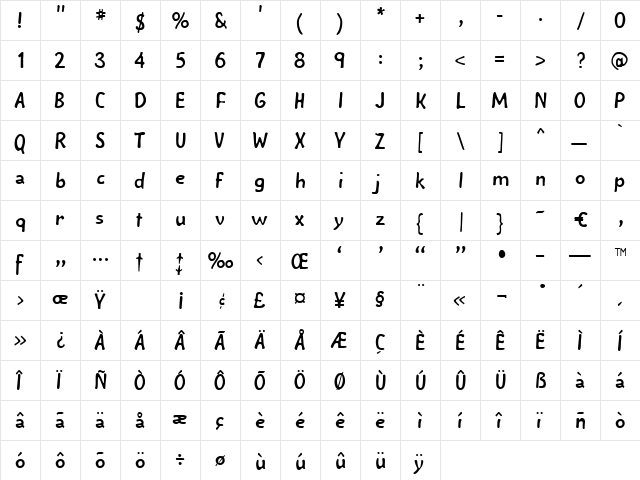
Vampir Regular
Design Context for Vampir Typeface
Vampir takes a measured approach to typography — its balanced proportions and neutral character make it a reliable workhorse for both digital and print work.
Pro Tip: Use Vampir in both headline and body roles to test its range before committing to a single application.